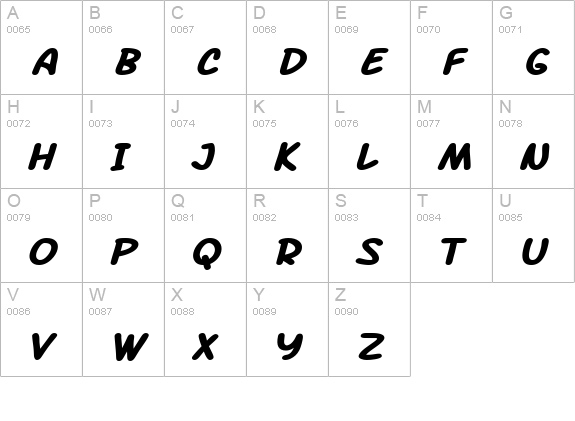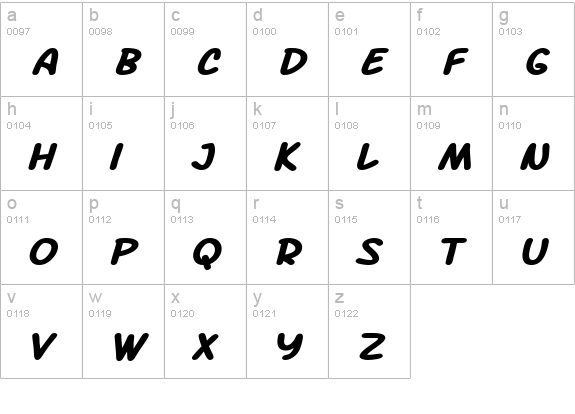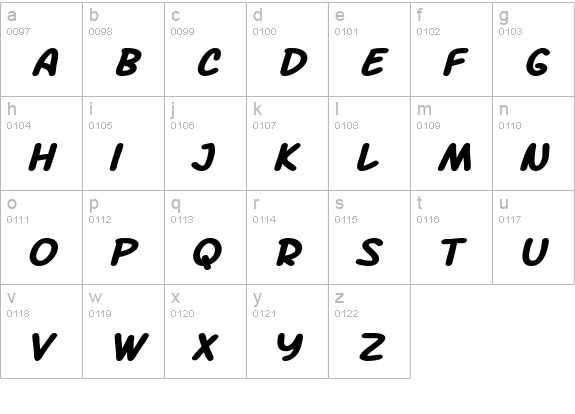
SF Arch Rival Extended Bold Italic Font Details
SF Arch Rival Extended Bold Italic is a strong, high-contrast, extended-width, italic variant in the SF typeface family \xE2\x80\x94 well suited to headlines, attention-grabbing titles, and strong calls-to-action.
Introducing SF Arch Rival Extended Bold Italic font, a stunning typeface that effortlessly captures attention and exudes modern sophistication. This font boasts a perfect blend of boldness and elegance, making it ideal for a wide range of design projects. With its extended and slightly slanted letterforms, SF Arch Rival Extended Bold Italic font commands a strong presence on any medium it graces. Its distinctive and eye-catching design is perfect for headlines, titles, logos, and branding materials that require a touch of edgy creativity. But what sets SF Arch Rival Extended Bold Italic font apart is not just its remarkable aesthetics. It is the fact that it is freely available to download at FontsMarket.com. Yes, you read that right – this exceptional font can be yours at no cost! FontsMarket.com is a trusted platform that offers a vast collection of high-quality fonts, and SF Arch Rival Extended Bold Italic font is among their generous offerings. Whether you are a professional designer, a passionate typographer, or simply someone looking to enhance their creative projects, SF Arch Rival Extended Bold Italic font is a must-have. Its seamless integration into various design applications and its versatility make it a valuable asset in your font library. So, why wait? Download SF Arch Rival Extended Bold Italic font today from FontsMarket.com and experience the seamless combination of boldness, elegance, and the freedom of having this exceptional font at your fingertips. Unleash your creativity and embark on a design journey like no other with SF Arch Rival Extended Bold Italic font – the perfect choice for those who dare to stand out.